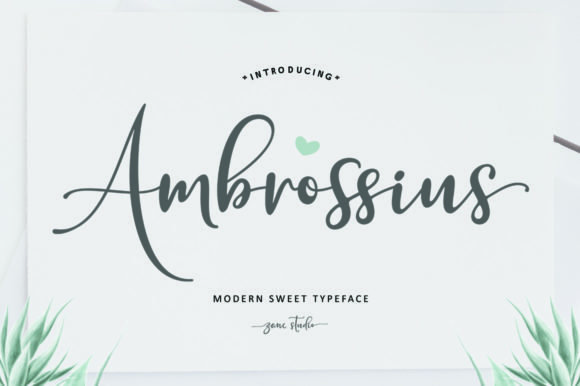
A Font that Brings Personality to Your Designs
Have you ever stared at a blank canvas, eager to unleash your creativity, but struggling to find the perfect words to bring your vision to life? It’s a familiar feeling for many designers, but what if we told you there’s a font that can turn any design project into a true standout?
Meet the Ambrossius Script Font, a classic crafting font that’s as fun as it is cool. With its unique twist, this handwritten font is designed to add a personal touch to any design, making it perfect for creative projects that need a little extra flair. Whether you’re a seasoned designer or just starting out, the Ambrossius Script Font is a valuable addition to your toolkit, helping you to craft designs that truly reflect your personality and style.
Ambrossius Script Font Key Features
- Font Family: Ambrossius Script, a beautiful script font designed for elegant and sophisticated text
- Unique Characteristics: Features elegant, connected letterforms with subtle flair and flair, creating a sense of fluidity and sophistication
Ambrossius Script Font Review
Overall, I think Ambrossius Script Font is a great addition to any designer’s toolkit, but it’s not without its quirks. Let’s dive in and see what works well and what doesn’t. ✨
- Beautiful, elegant script style that’s perfect for invitations, wedding stationery, or any other project where a touch of sophistication is needed.
- Wide range of weights and styles to choose from, making it easy to find the perfect fit for your design.
- Works well with both serif and sans-serif fonts, making it easy to incorporate into a variety of design schemes.
- Can be a bit too ornate for some designs, making it difficult to read at smaller font sizes.
- Lack of support for some languages, which may limit its use in certain projects.
- Not as versatile as some other script fonts, which may limit its use in certain design applications.
Overall, I’d give Ambrossius Script Font 4 out of 5 stars. It’s a beautiful, elegant font that’s perfect for the right project, but it’s not without its limitations. With a bit of careful planning and consideration, it can be a valuable addition to any designer’s toolkit.
Use the Ambrossius Script Font for creative and elegant designs. Pair it with a serif font for a balanced look. Experiment with different font sizes and colors to create visual interest.
The Ambrossius Script Font is ideal for:
- Birth announcements and baby showers
- Special event invitations and programs